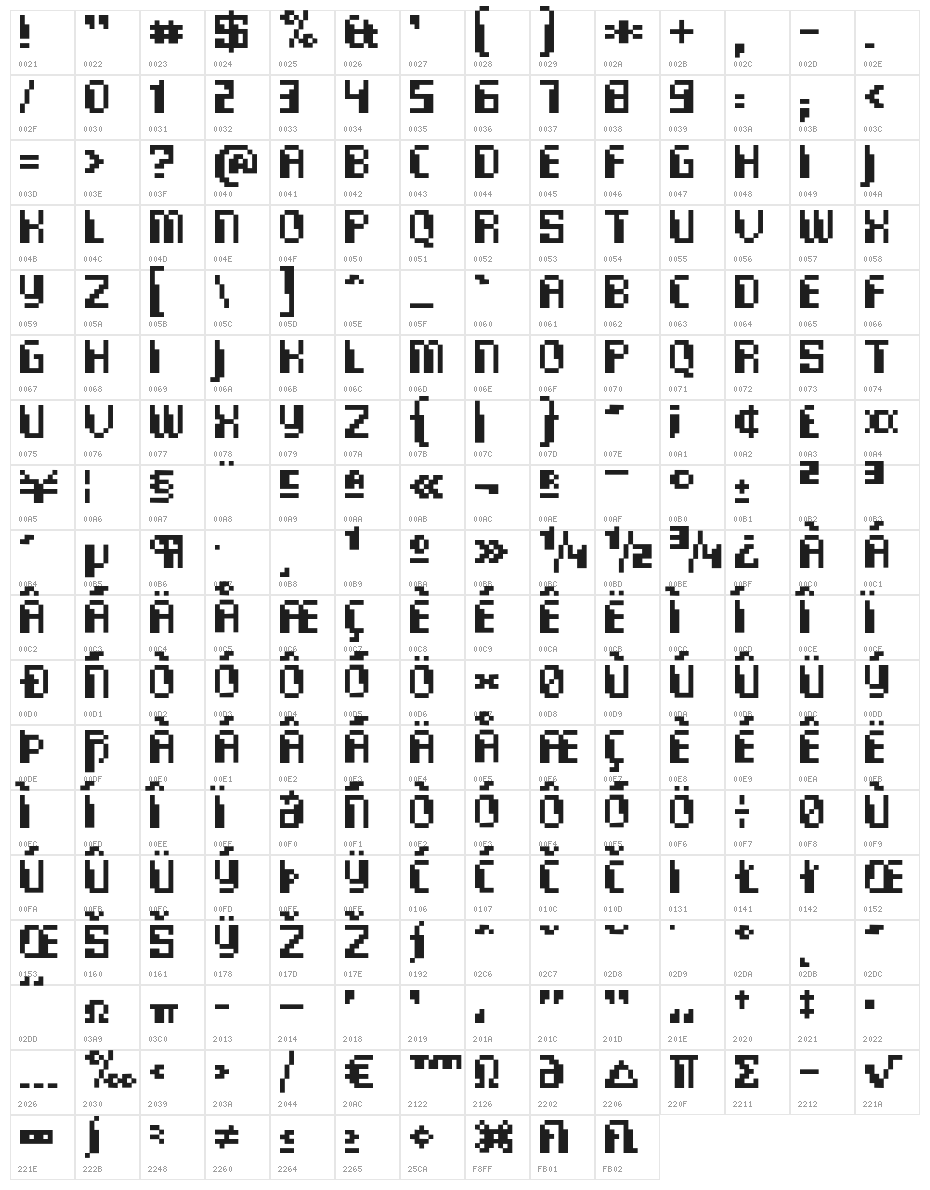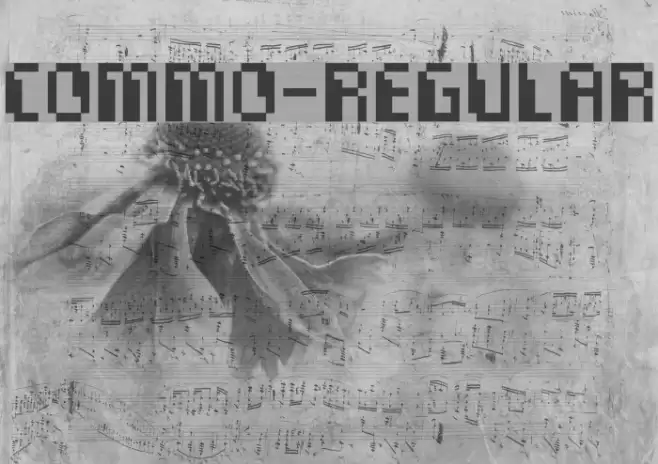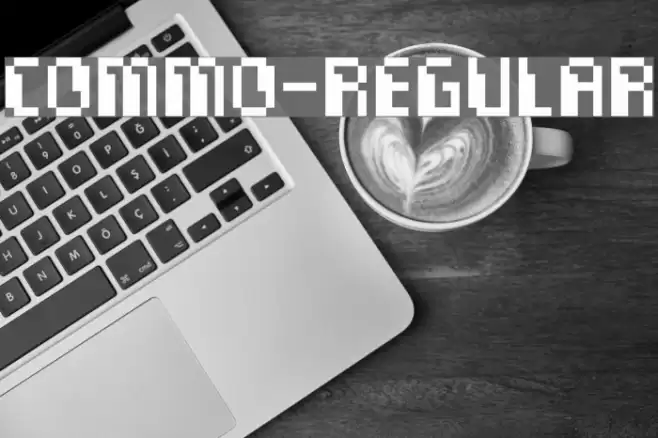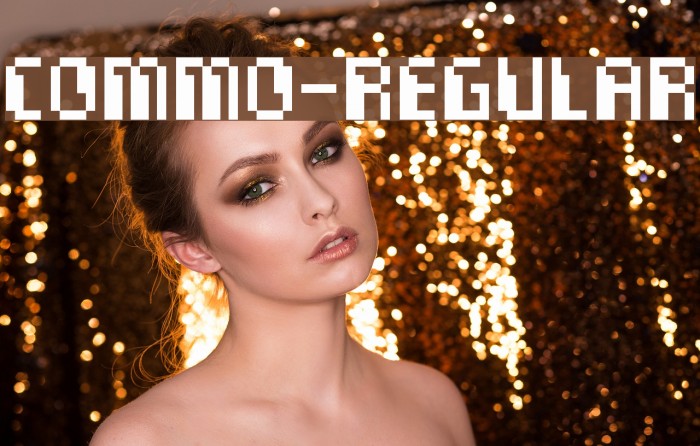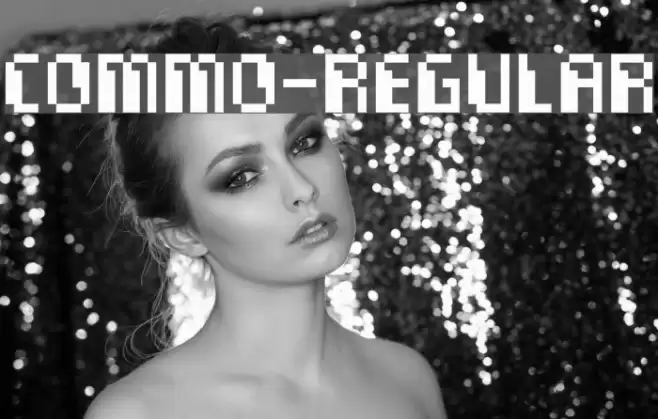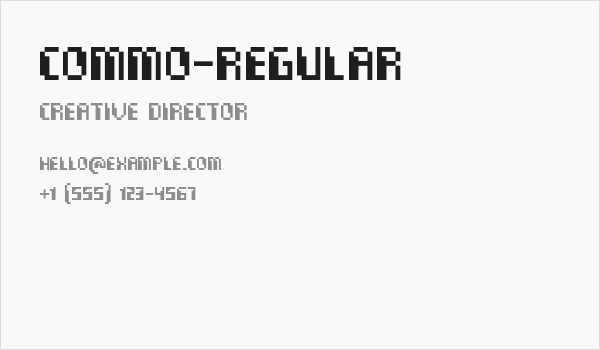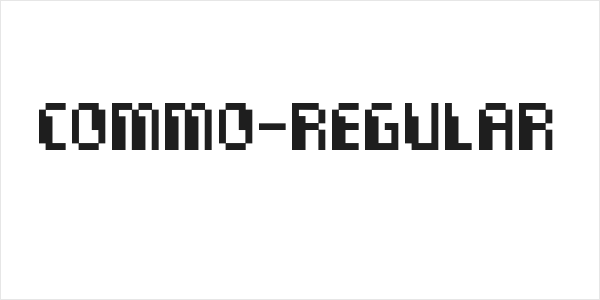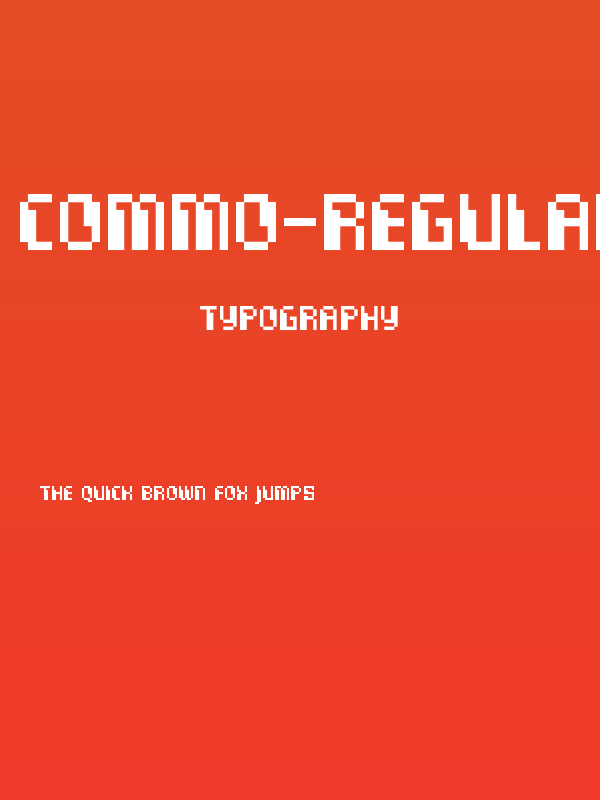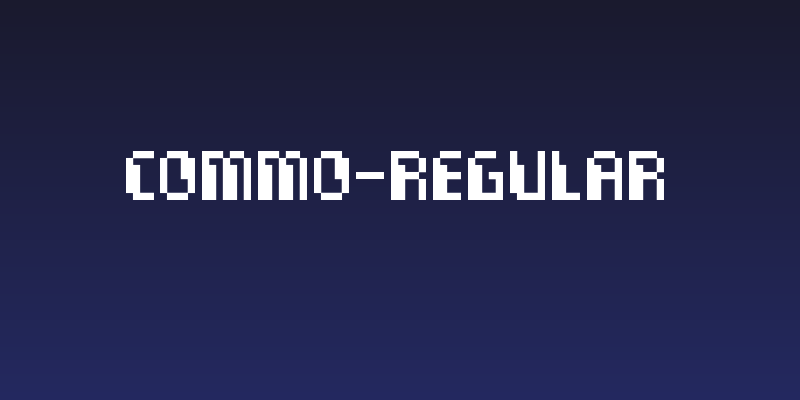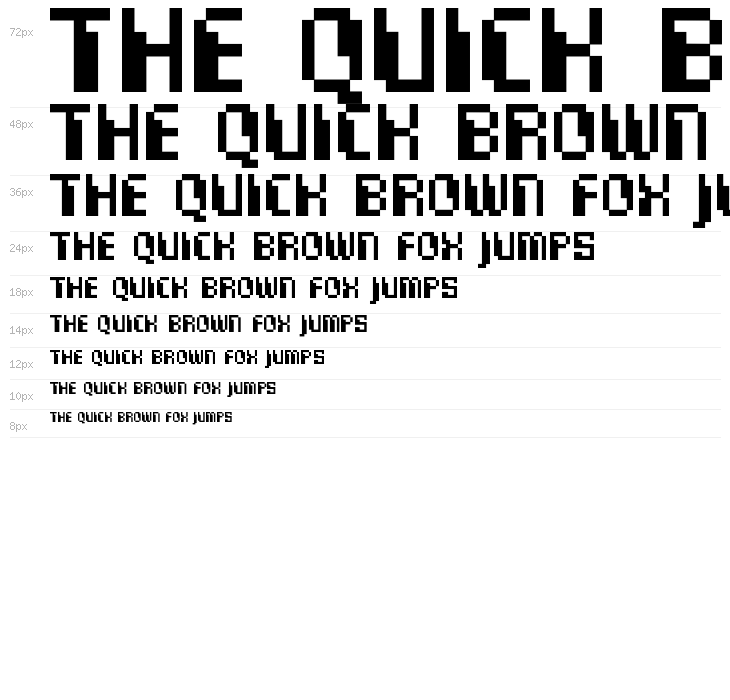
Commo-Regular Font
This font features a bold, geometric design with a pixelated, block-like appearance. Each character is constructed with sharp, angular lines, creating a digital, retro aesthetic reminiscent of early video game graphics. The uniformity in stroke width across all characters contributes to a cohesive and structured look. The uppercase and lowercase letters maintain a consistent height, enhancing the font's monospaced feel. Numbers and special characters are designed with the same pixelated style, ensuring visual harmony throughout the character set.
Overall StyleRetro, Digital
Proposed ProjectsIdeal for video game design, retro-themed posters, digital art projects, and tech-related branding.